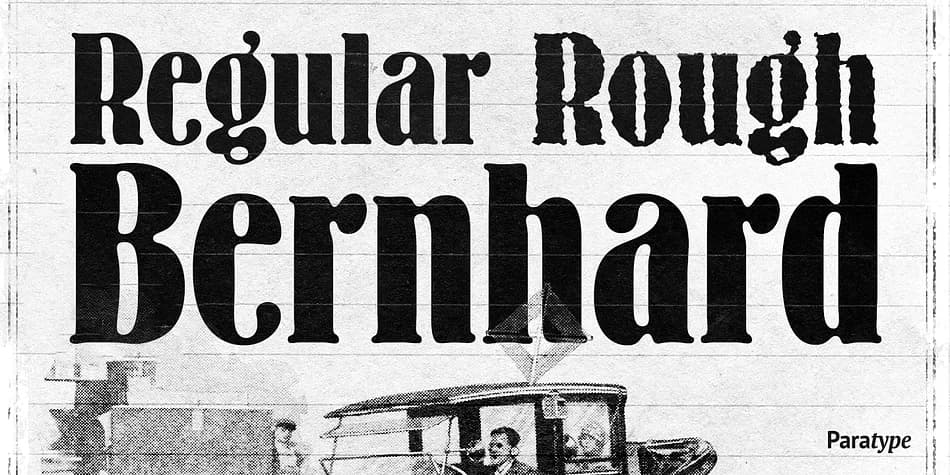
Bernhard by ParaType is a condensed decorative typeface carrying serious vintage pedigree. Tatiana Lyskova revived and refined it in 1993 as a digital interpretation of Lucian Bernhard's Bernhard Condensed, the original released by Bauer in 1912. The revival faithfully brings that foundational design's architectural geometry and compressed proportions into the modern digital era while preserving the powerful character that made it such an effective workhorse for twentieth-century advertising and poster design. This is a typeface built for impact and genuine authority, with the geometric sharpness that makes every word it sets feel intentional.
The condensed width makes Bernhard ideal for high-impact applications where elegant typographic presence matters. Event and nightclub posters command wall space with its bold personality, while luxury branding (wine labels, artisanal cosmetics packaging, boutique retail signage) gains genuine sophistication from its refined proportions and vintage credibility. Magazine headers and editorial mastheads feel considerably more authoritative when anchored by Bernhard's substantial weight, and vintage-style projects like record packaging or music branding naturally embrace its retro glamour. Even contemporary logo work uses its blend of condensed efficiency and art deco sensibility to strong effect, proving it works as well in modern contexts as it did a century ago.
Bernhard Font is a decorative font that shines as a display or heading face. Pair it with a clean sans-serif or serif font for body text β the contrast creates a clear hierarchy while the two styles stay balanced and easy to read.